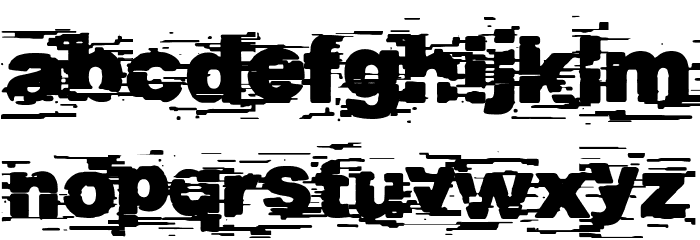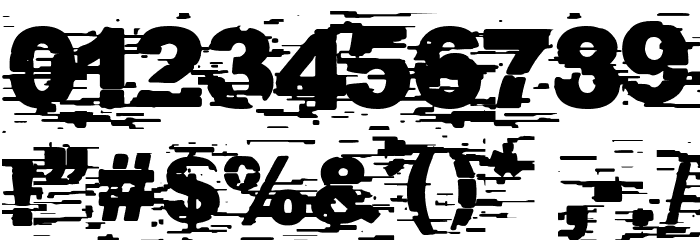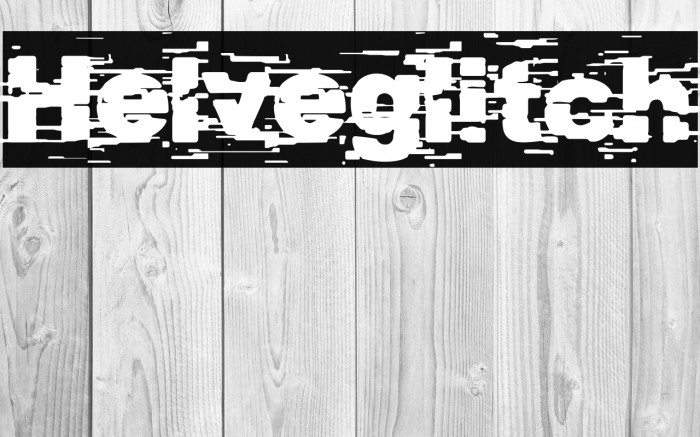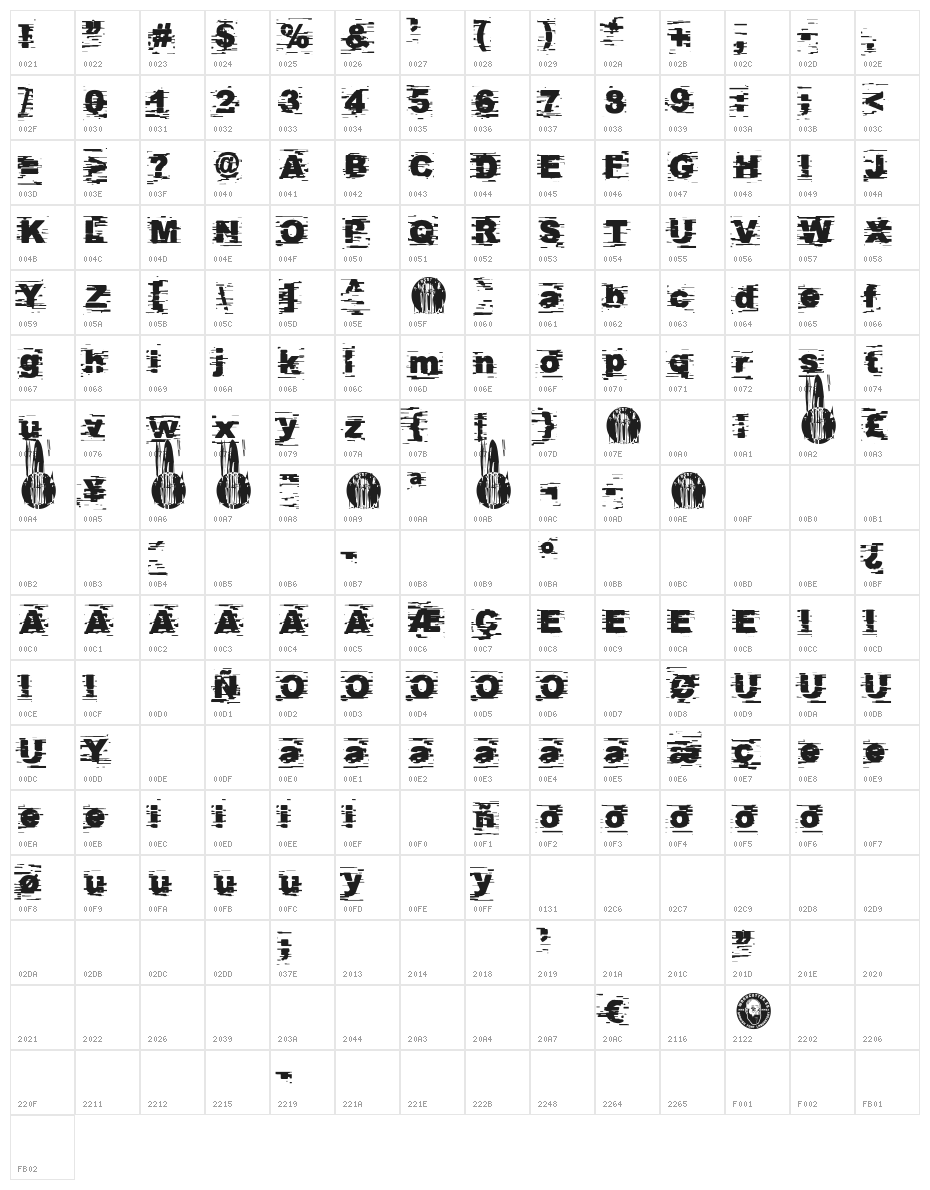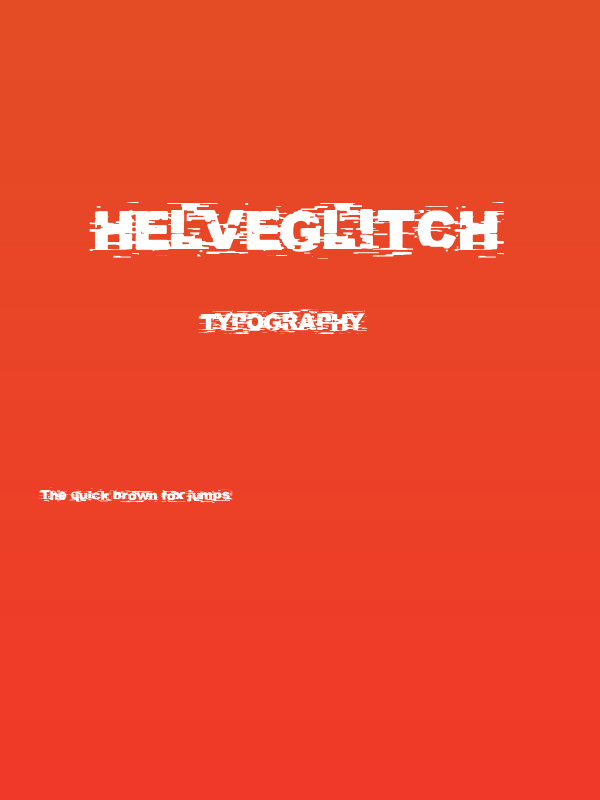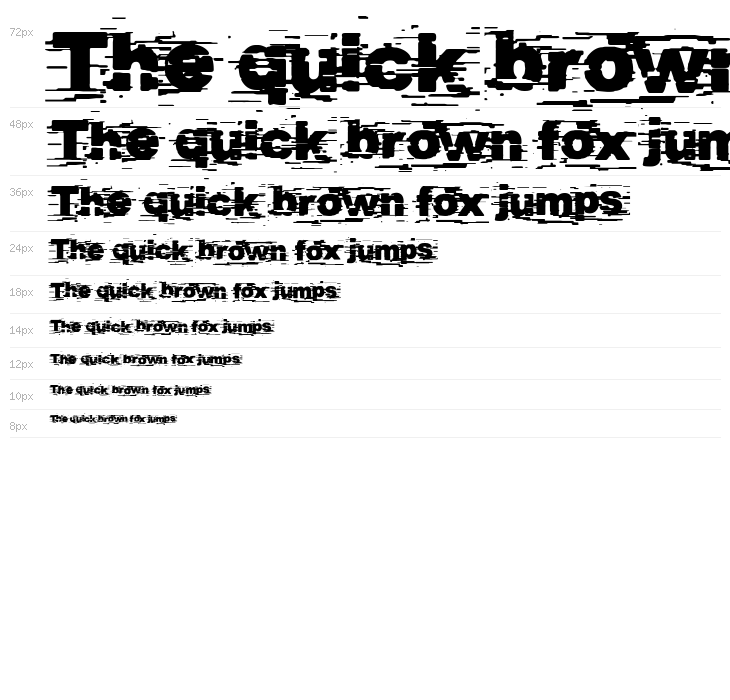
Helveglitch Font
This font features a bold, glitch-inspired design with a distressed, fragmented appearance. The characters are heavily stylized, with horizontal lines and distortions running through each letter and number, giving it a digital, corrupted look. The uppercase and lowercase letters maintain a consistent width, while the numbers and special characters follow the same glitch aesthetic. This font is ideal for projects that require a modern, edgy, and unconventional style, making it perfect for digital art, music album covers, or tech-themed designs.
A bold, glitch-inspired font with a distressed, fragmented appearance.
- Font: Helveglitch
- Proposed Projects: Digital art, music album covers, tech-themed designs, posters, and experimental graphics.
- Overall Style: Modern, Edgy, Digital